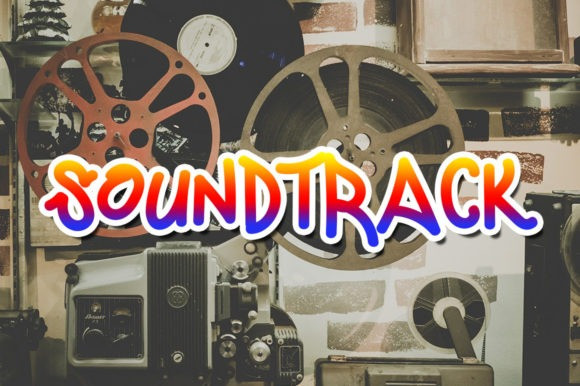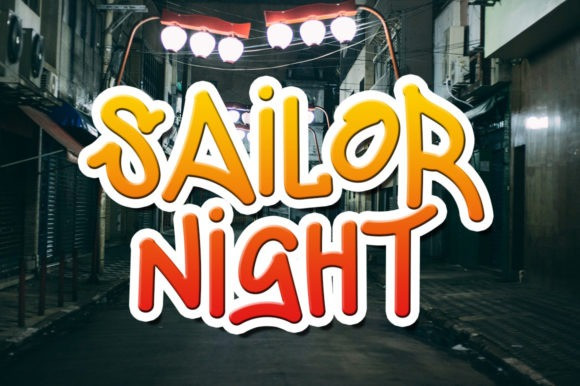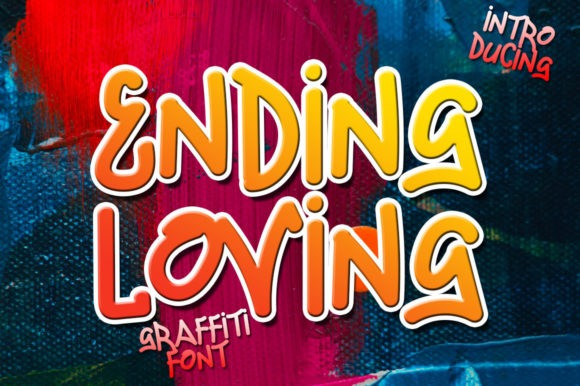
Ending Loving Font
Ending Loving Font, is a cool and modern display font that can add lively street vibes to any creation! It is perfectly suitable for branding, labels, logos, watermarks, apparel designs, and so much more!